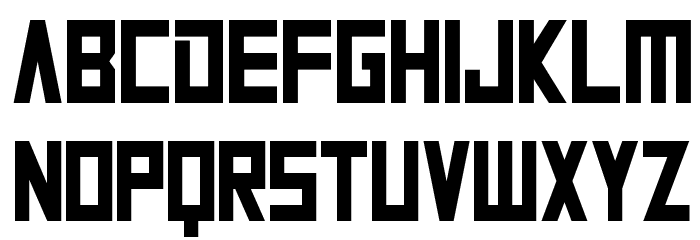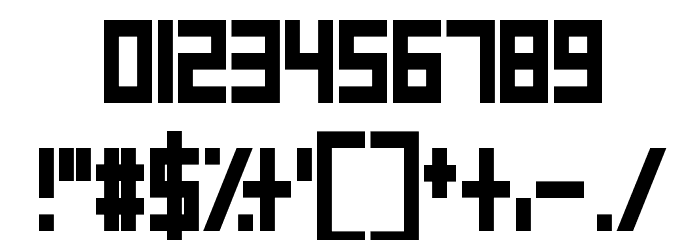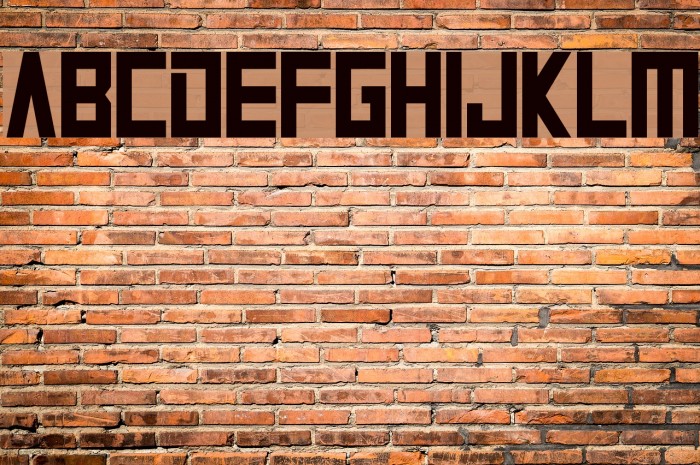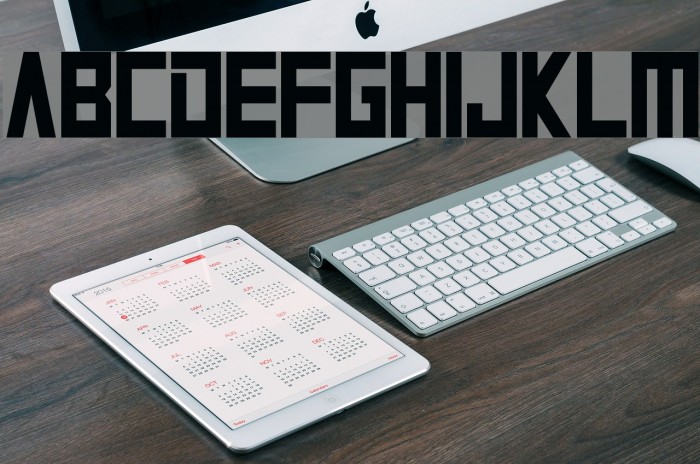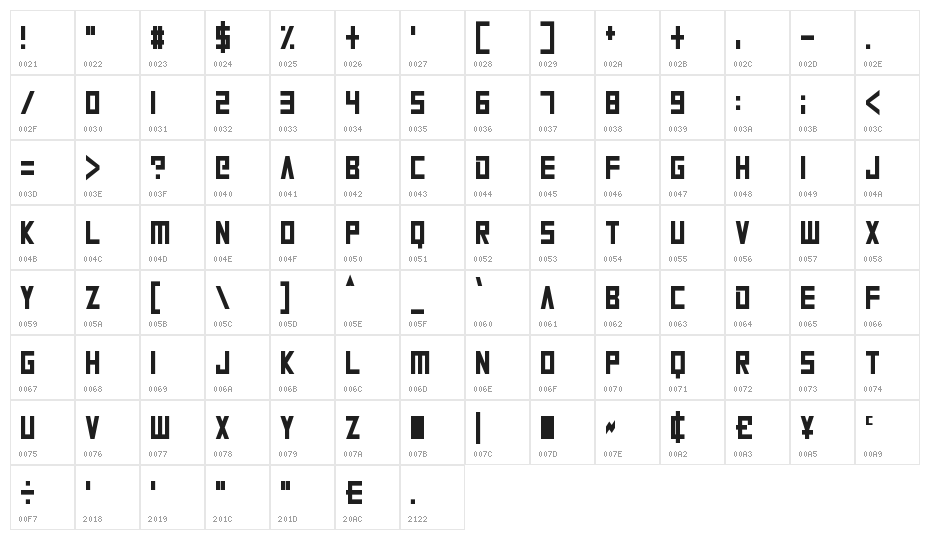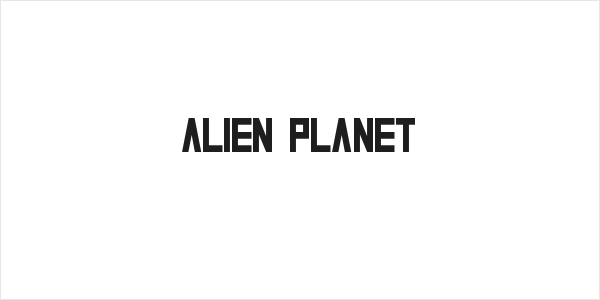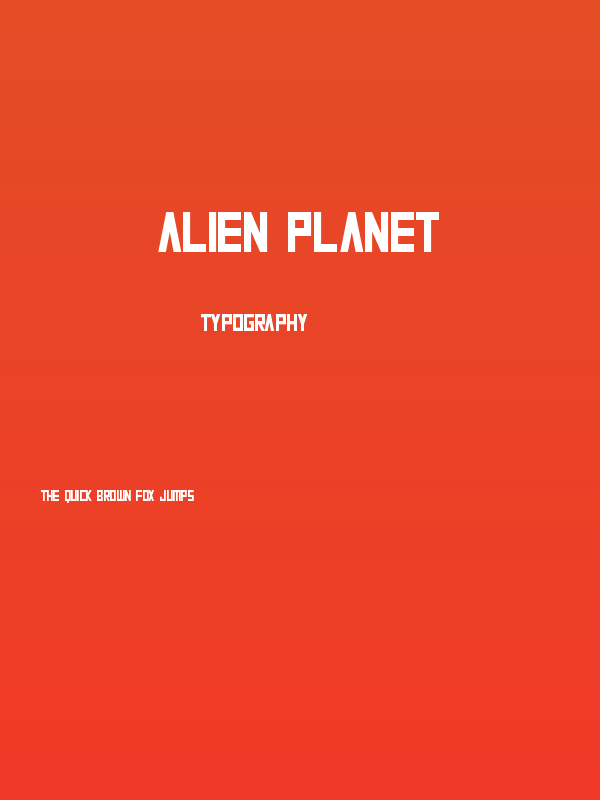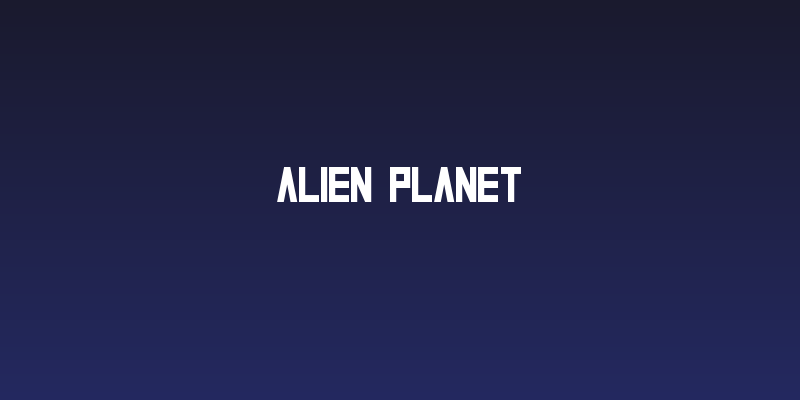
Alien Planet Font
This font features a bold and futuristic design with geometric shapes and sharp angles. The characters are blocky and uniform, giving it a digital or sci-fi appearance. The uppercase and lowercase letters share a consistent style, with minimal curves and a strong emphasis on straight lines. The numbers and special characters maintain the same aesthetic, ensuring a cohesive look across all elements. The font's unique style makes it stand out, ideal for projects that require a modern and edgy feel.
A bold, futuristic font with geometric shapes and sharp angles.
- Proposed Projects: Ideal for sci-fi themed designs, video game interfaces, movie posters, and technology branding.
- Overall Style: Futuristic